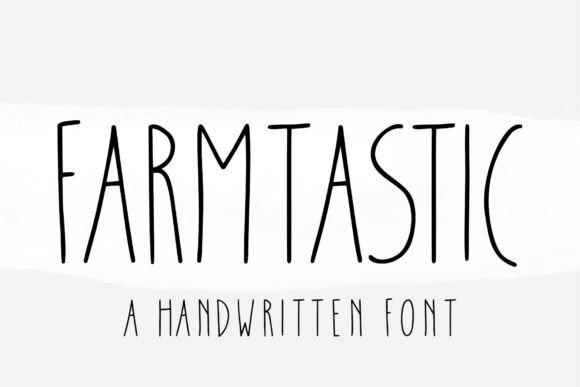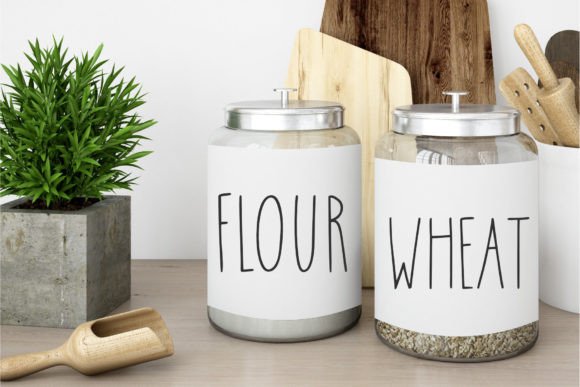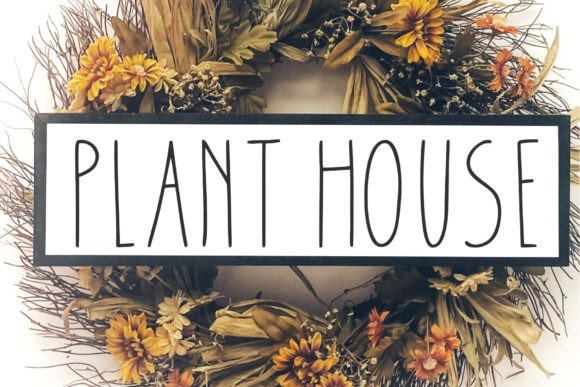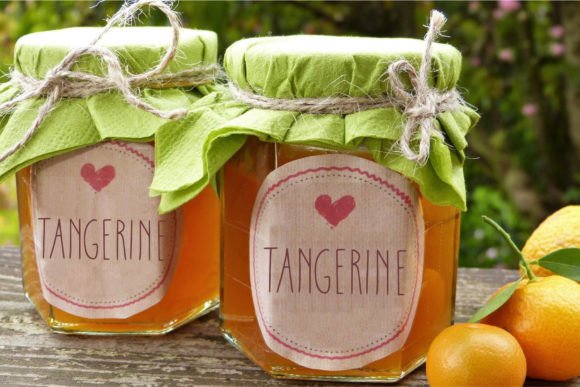
Farmtastic Font
Farmtastic is a tall and thin font perfect for your home decor and craft designs. This font is also suitable for party invitations, signs, country decor, farmhouse signs, websites, branding, children’s designs, blogs, logos, invitations, and more!